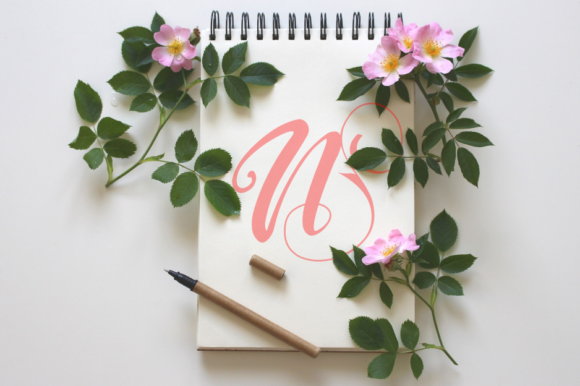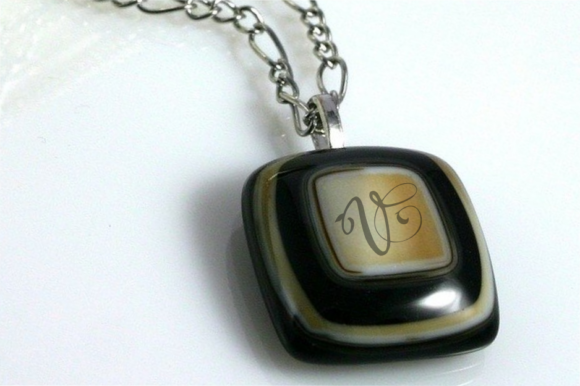
Monogram Veg
About Monogram Veg Font
Monogram Veg is an elegant handwritten font that features sweet swashes. This original look will appeal to a wide range of crafty ideas, from letterheads and titles, to stationery.